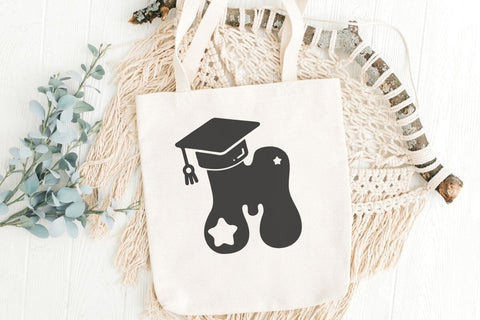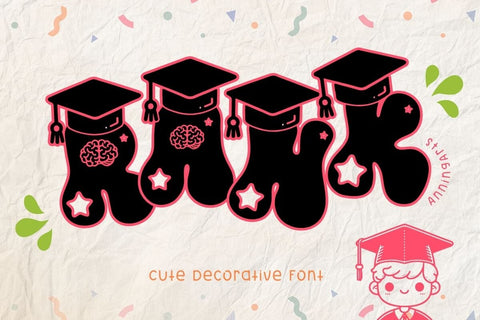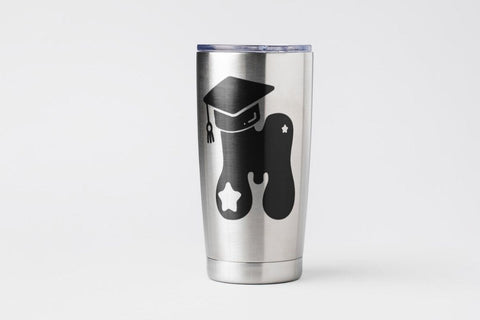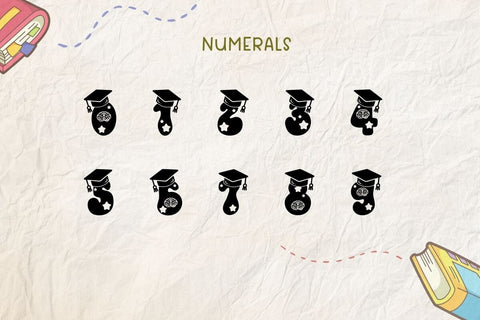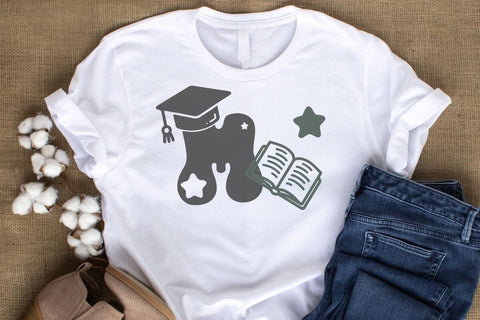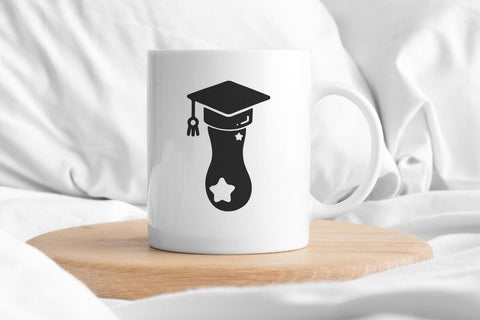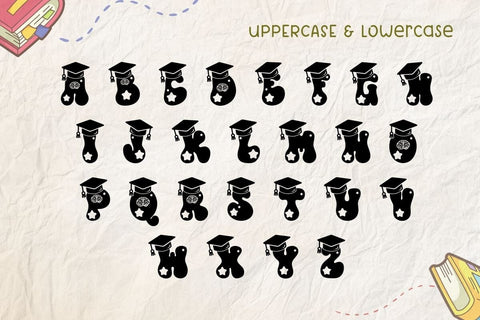
Rank - Display font
Rank is a cute decorative font adorned with graduation-themed elements such as stars, graduation hut, glasses, etc. Its quirky design adds fun to any project. Perfect for creating various new designs to match your product such as banners, content, mugs, cards, shirts, stationery, social media posts, and more!